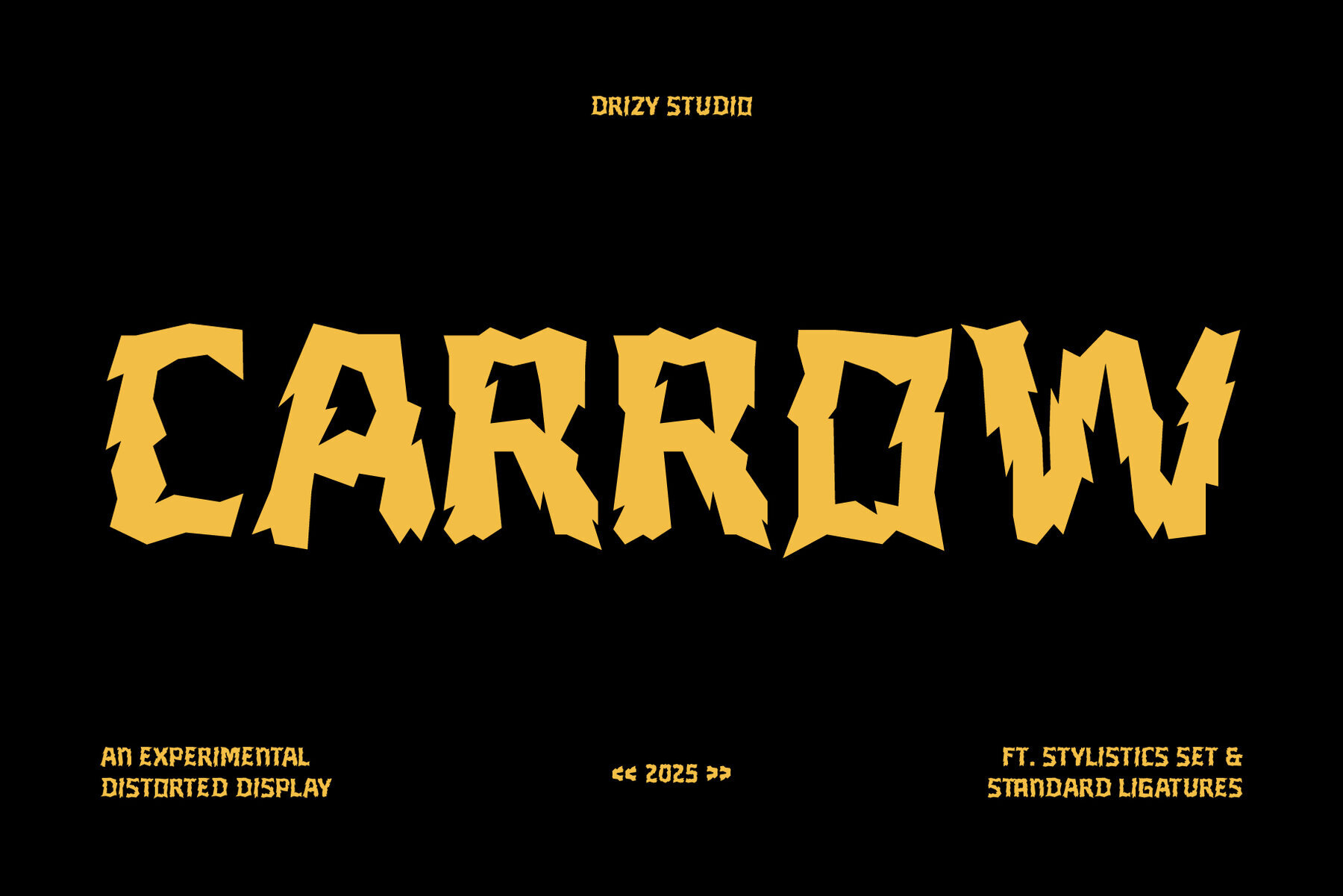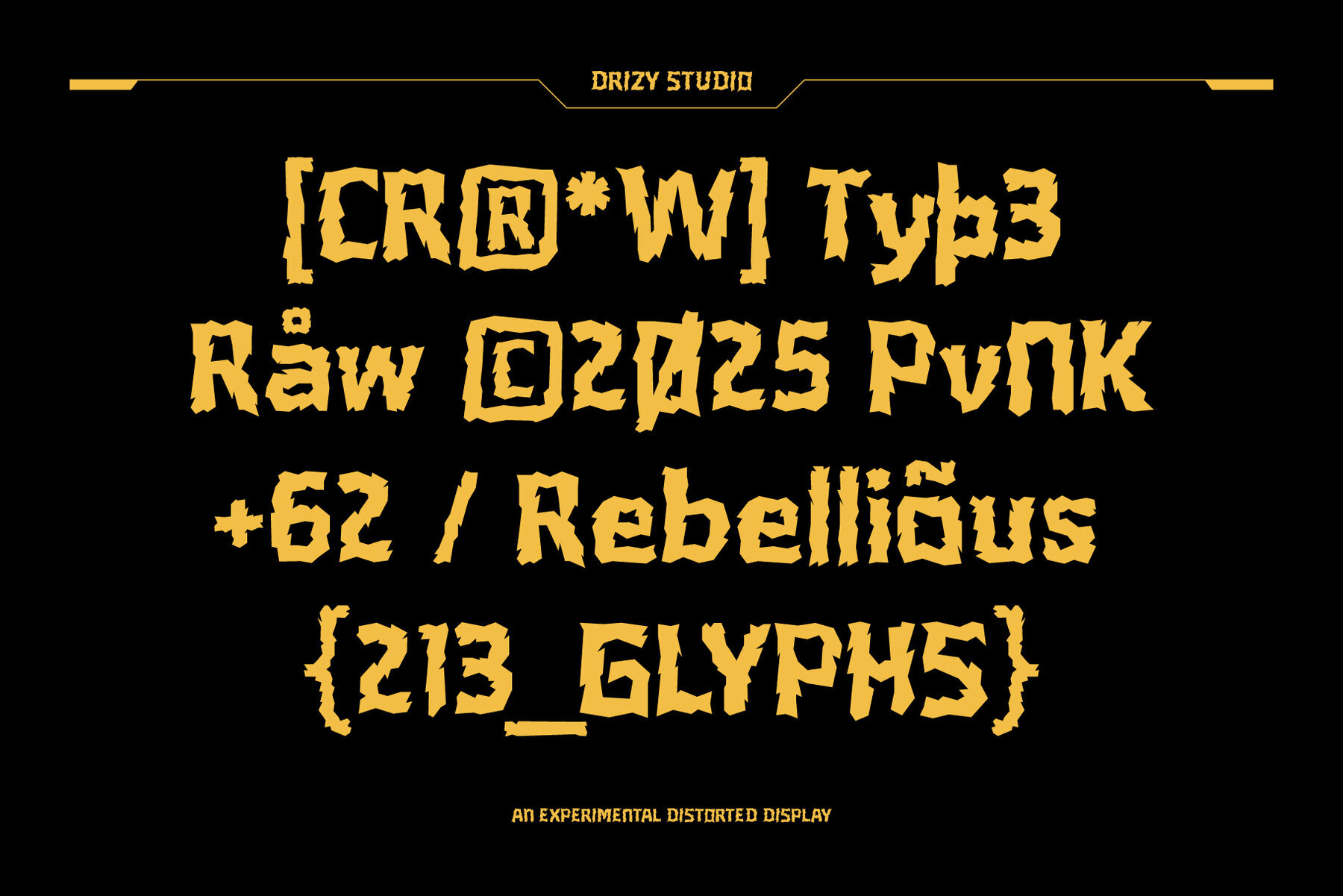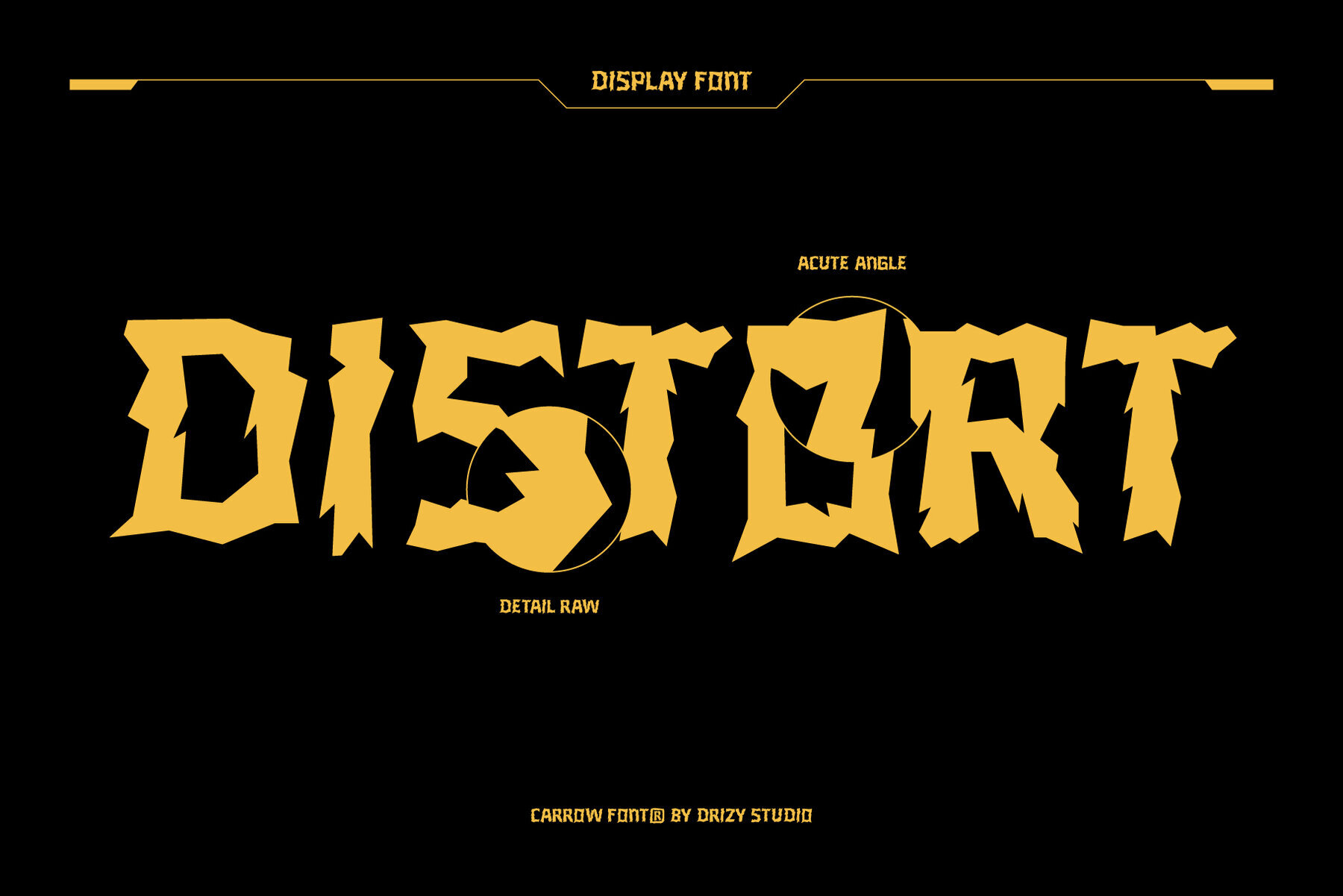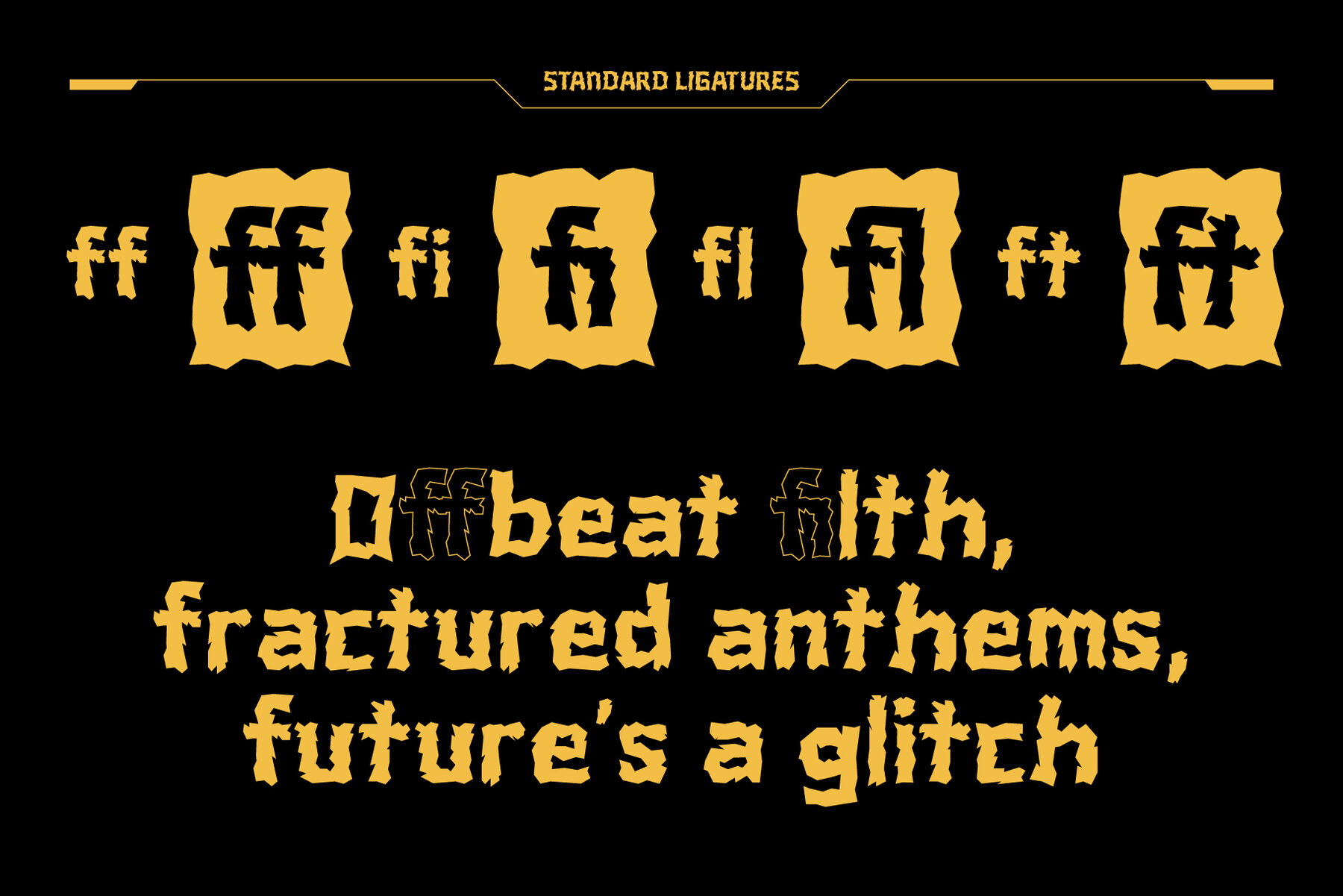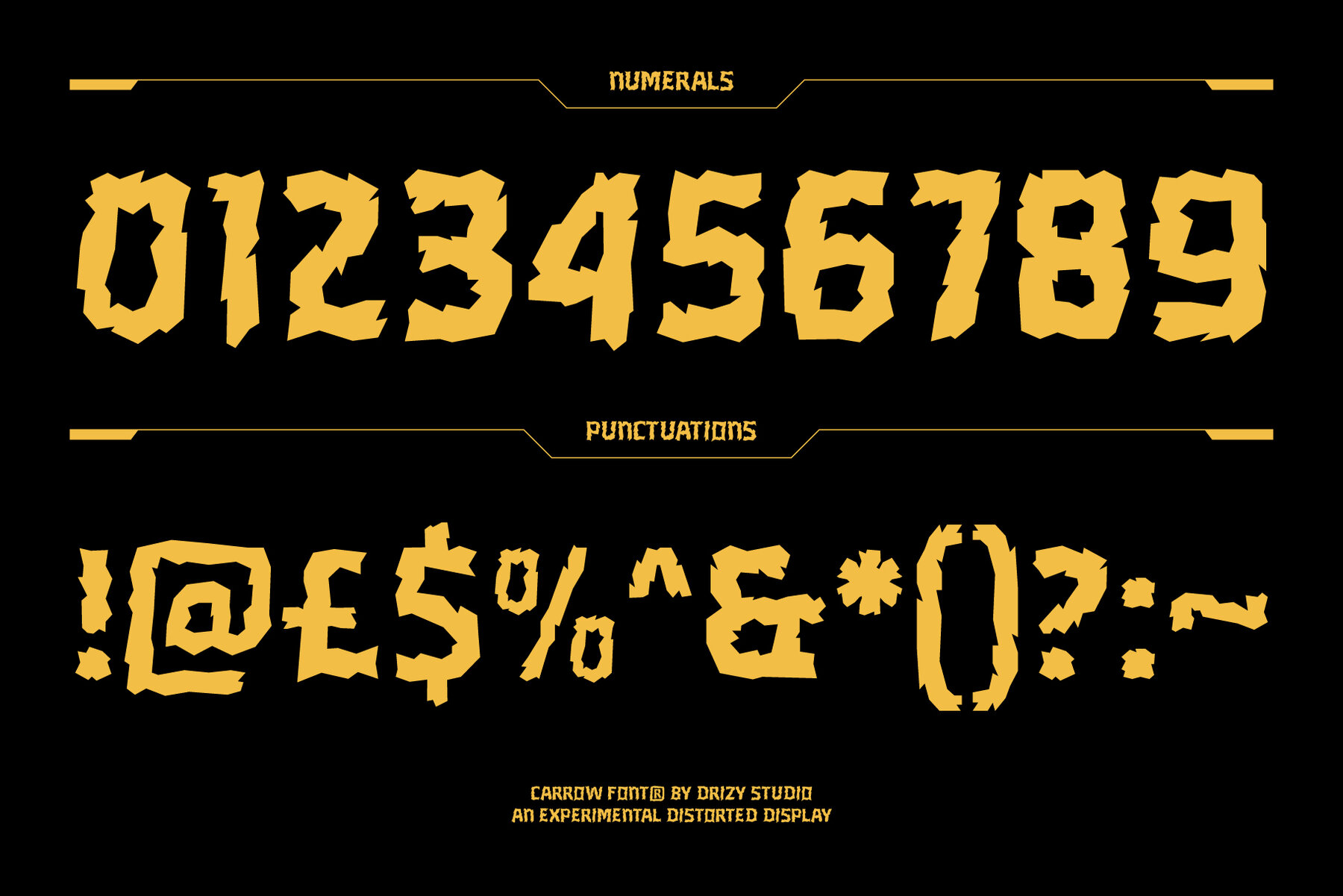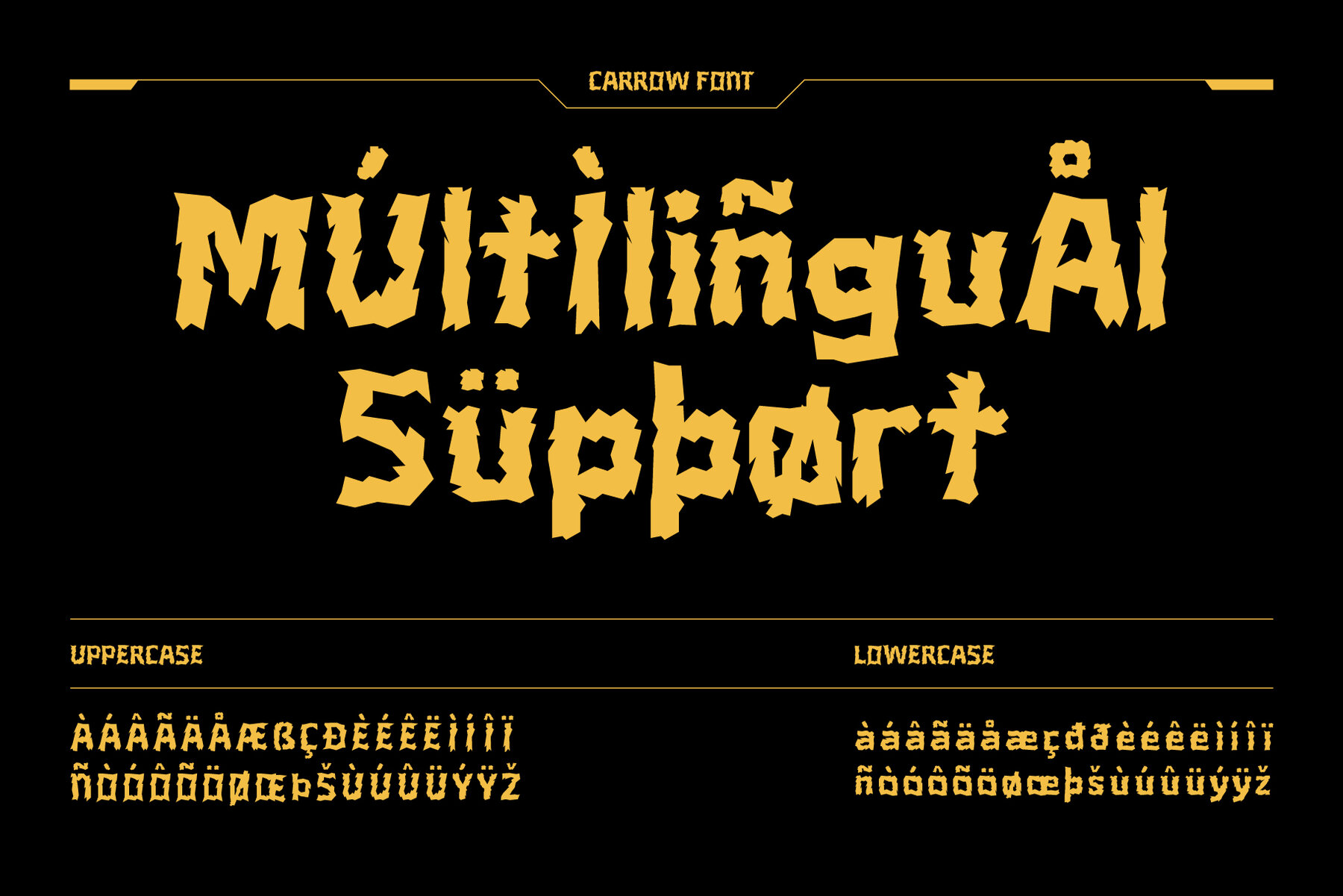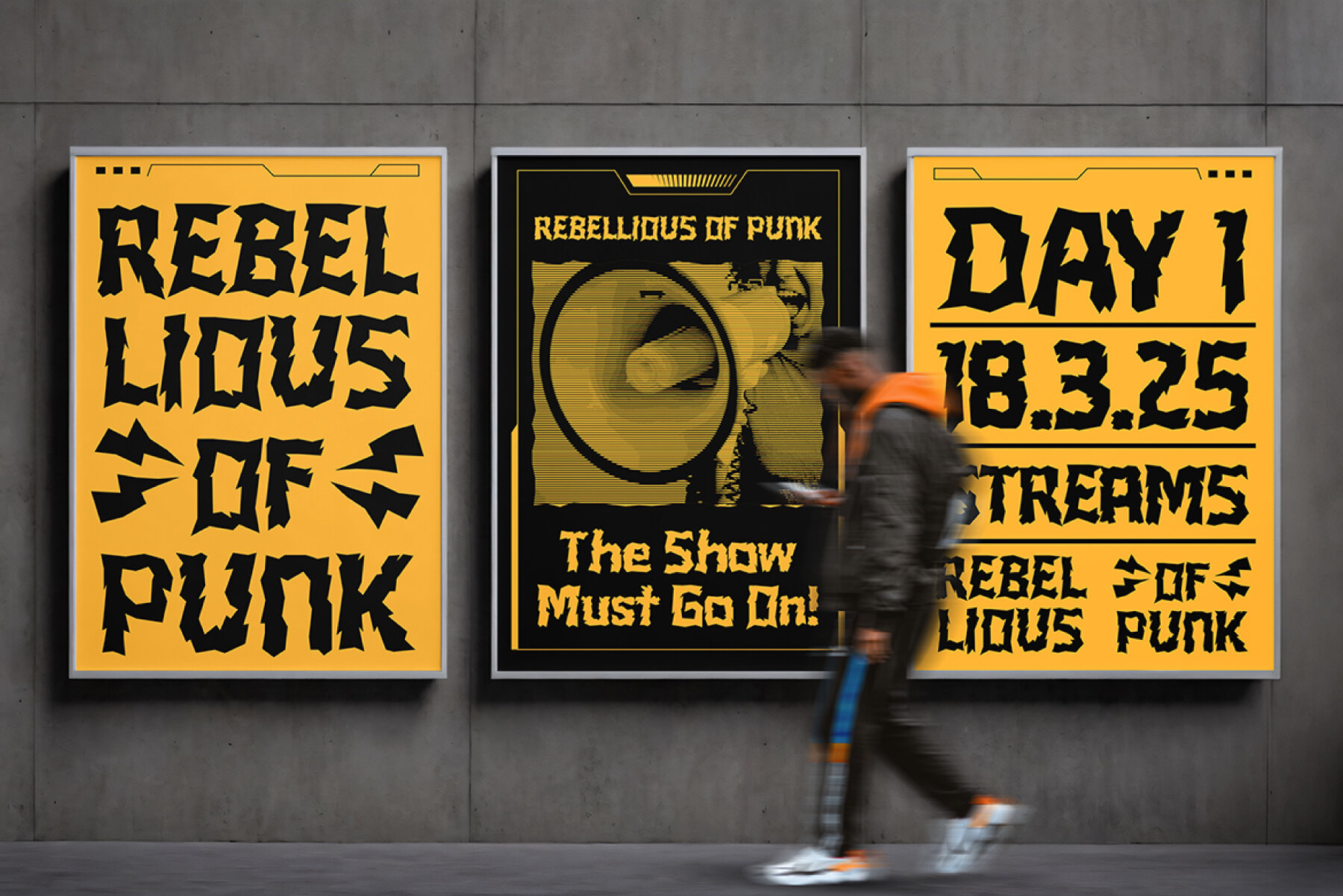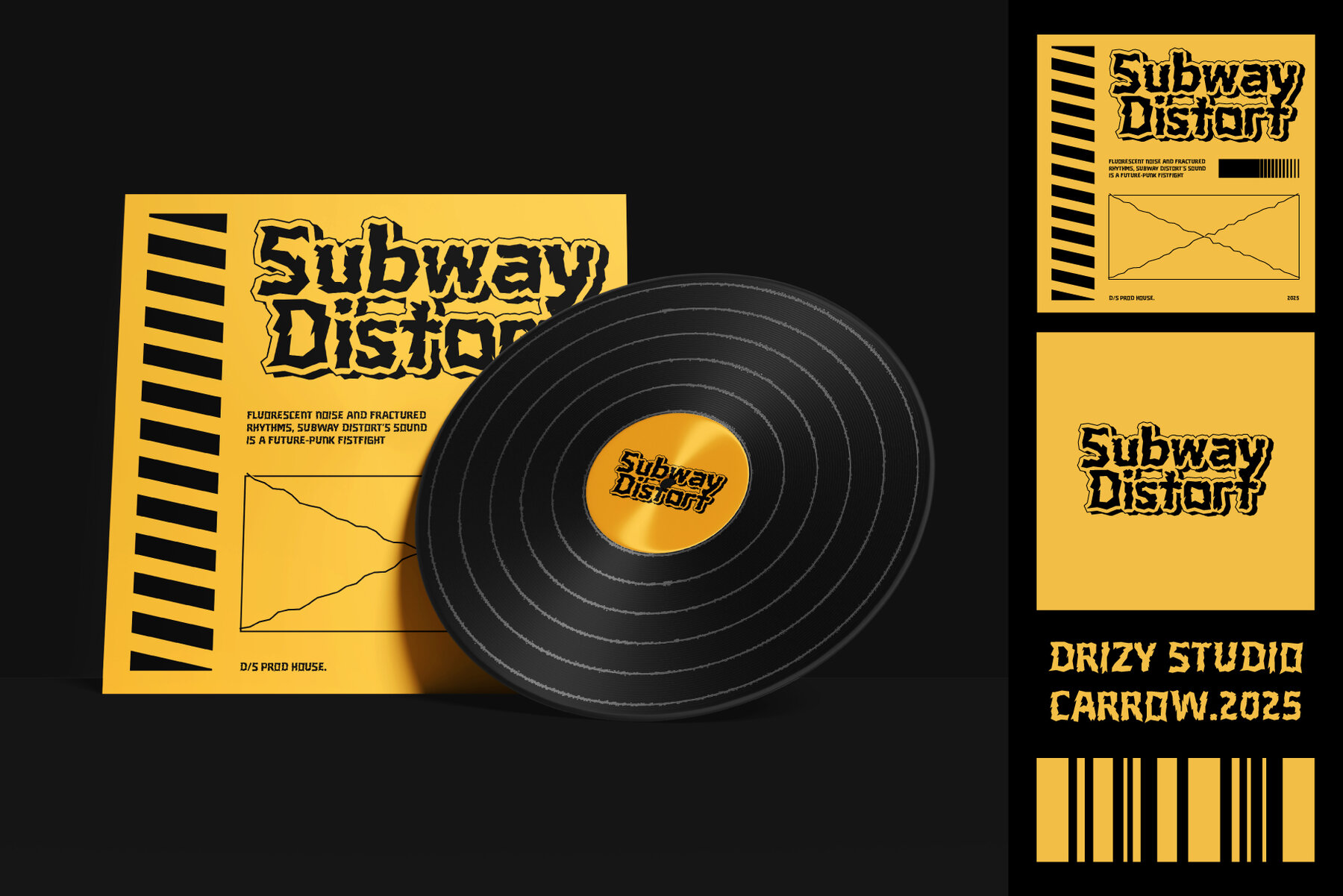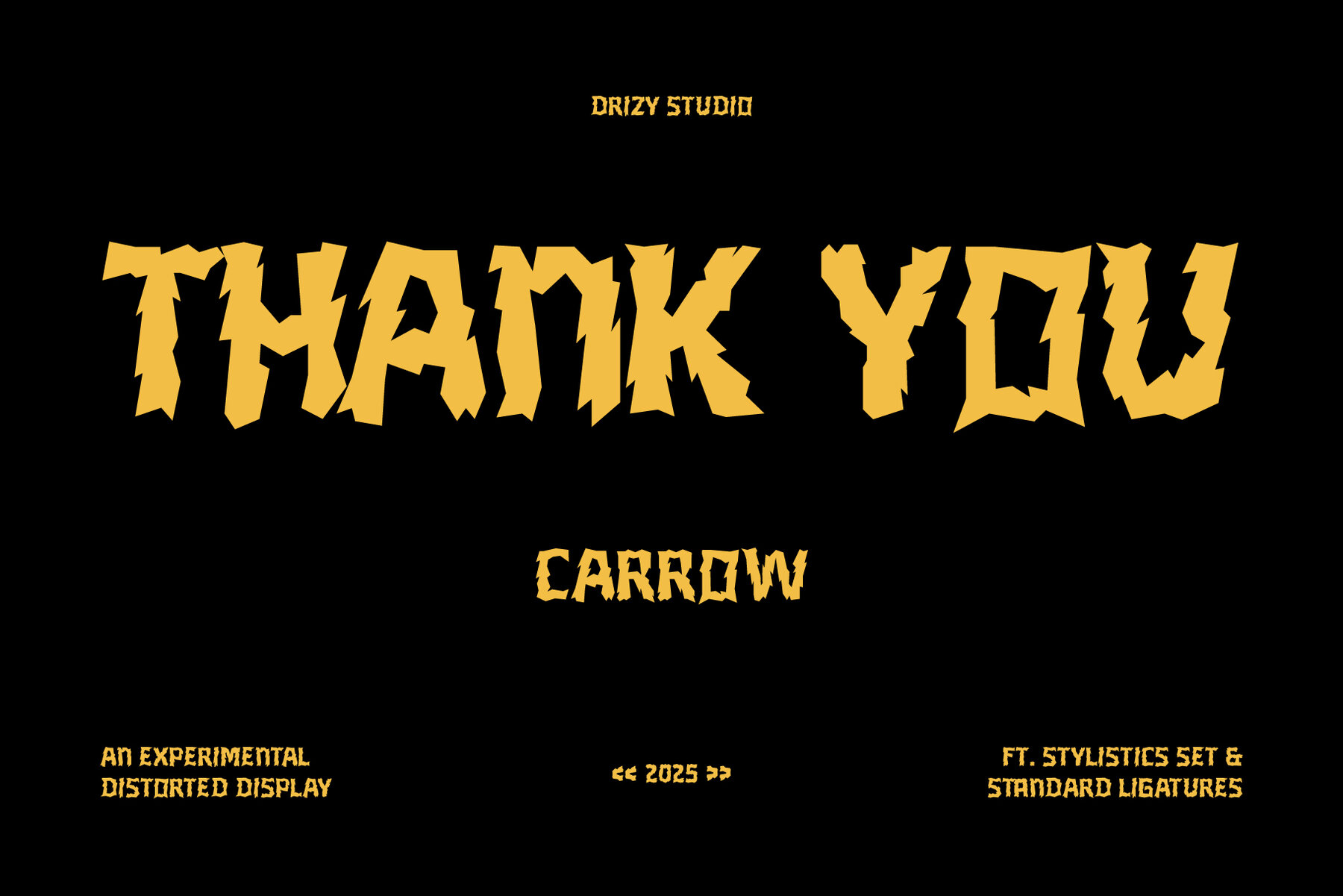
Carrow Font
Carrow Regular
Carrow embodies the bold spirit of modern punk aesthetics through an experimental and distinctly distorted display font design. With its jagged edges and unconventional letterforms, Carrow challenges typographic norms, making it a daring choice for projects that require a touch of rebellion and intensity. Ideal for grunge album covers, edgy streetwear branding, rebellious posters, and cyberpunk visuals, this font adds an electrifying presence to any creative work.Carrow: An Experimental Distorted Display Font